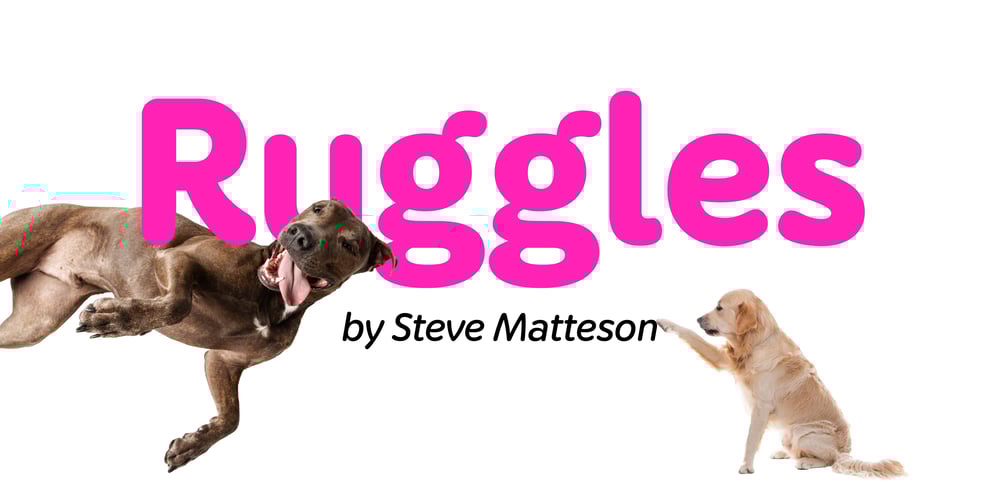
Ruggles Font Family was designed by Steve Matteson and published by Matteson Typographics. Ruggles contains 12 styles and family package options. Ruggles is a rounded sans serif inspired by the unbridled enthusiasm of a dog greeting its family. Useful for any occasion where a warm and friendly voice is needed – branding, greetings, special promotions.